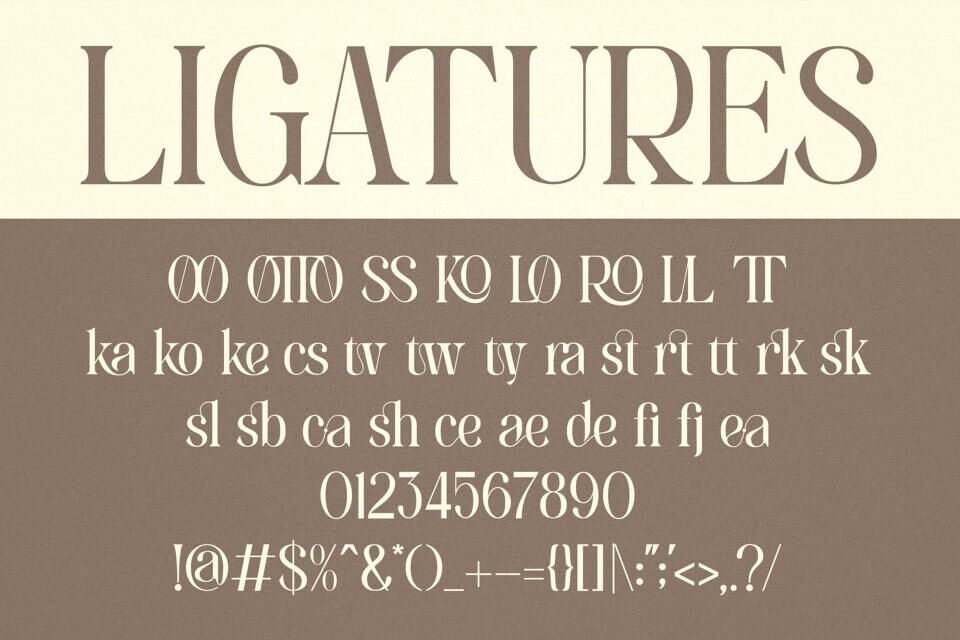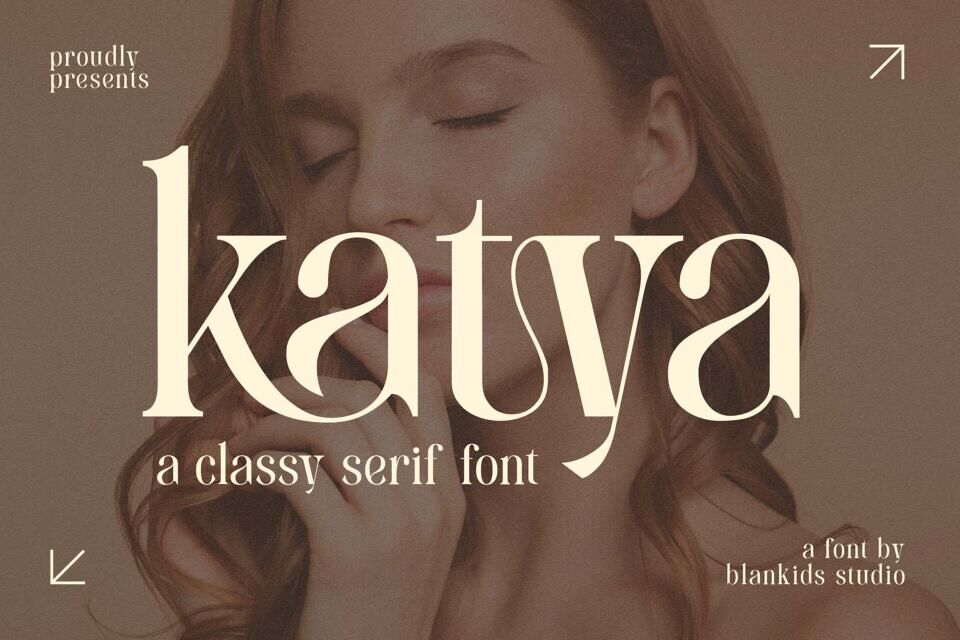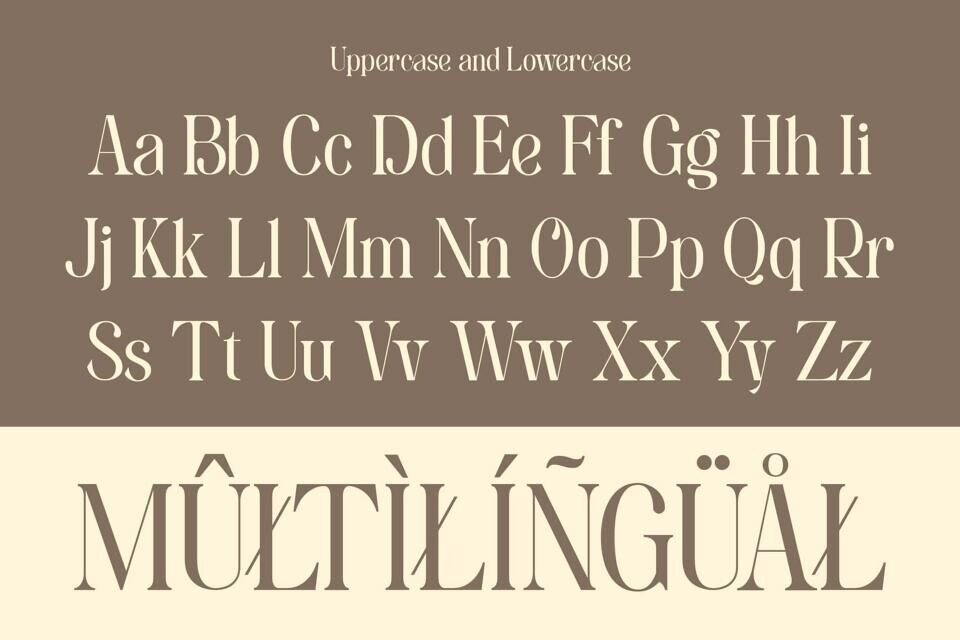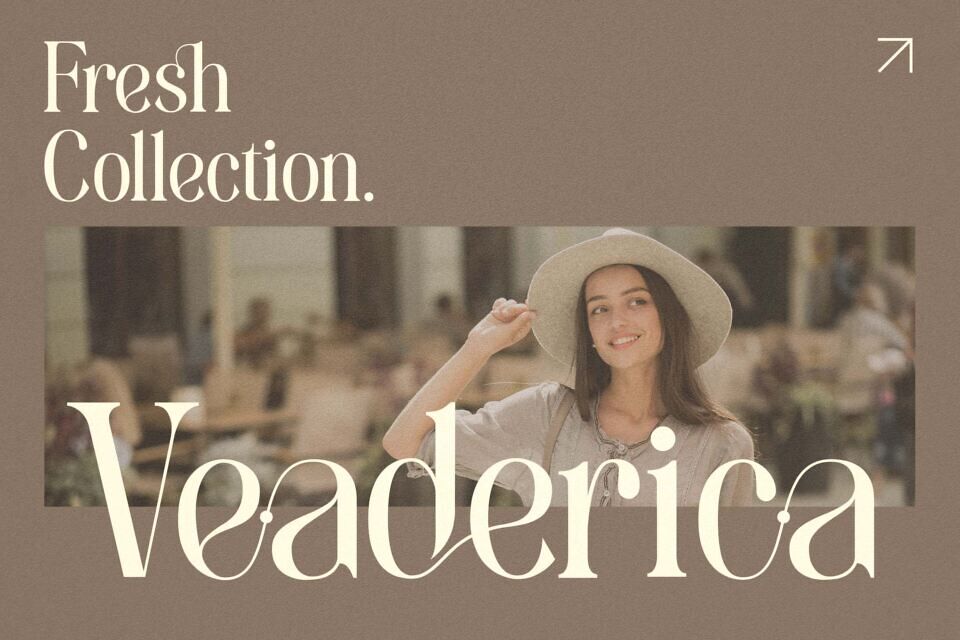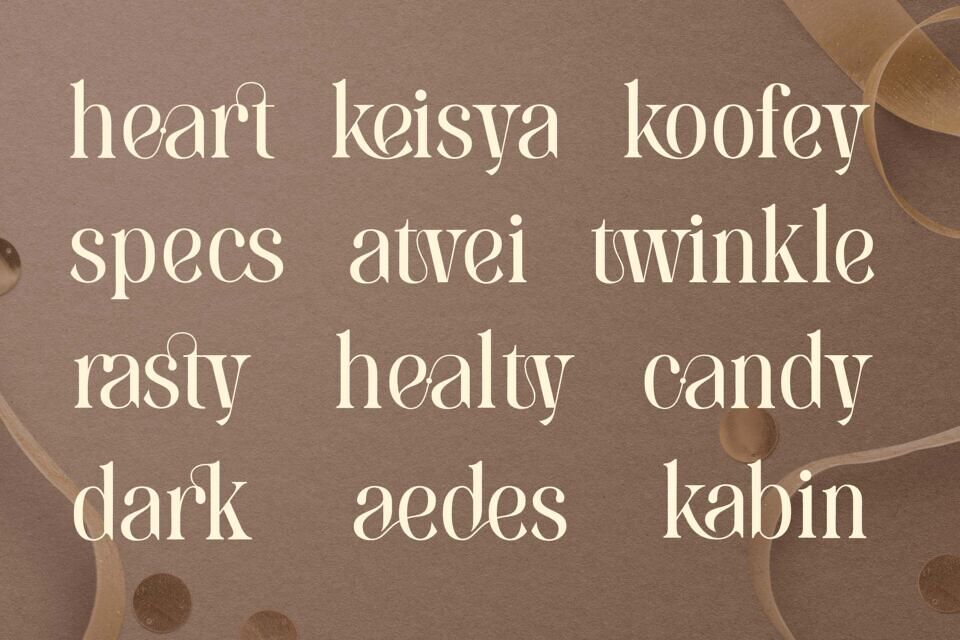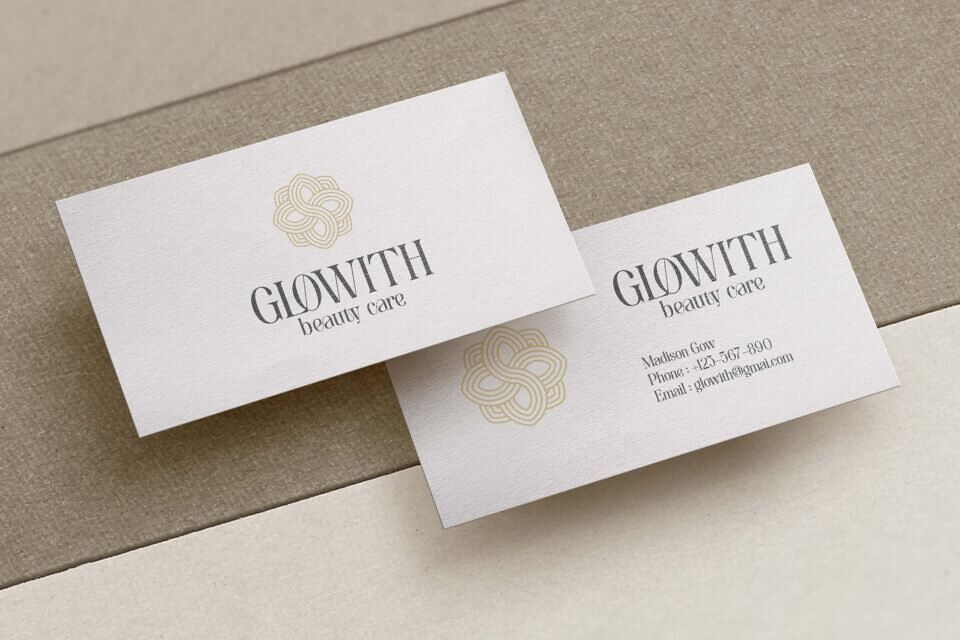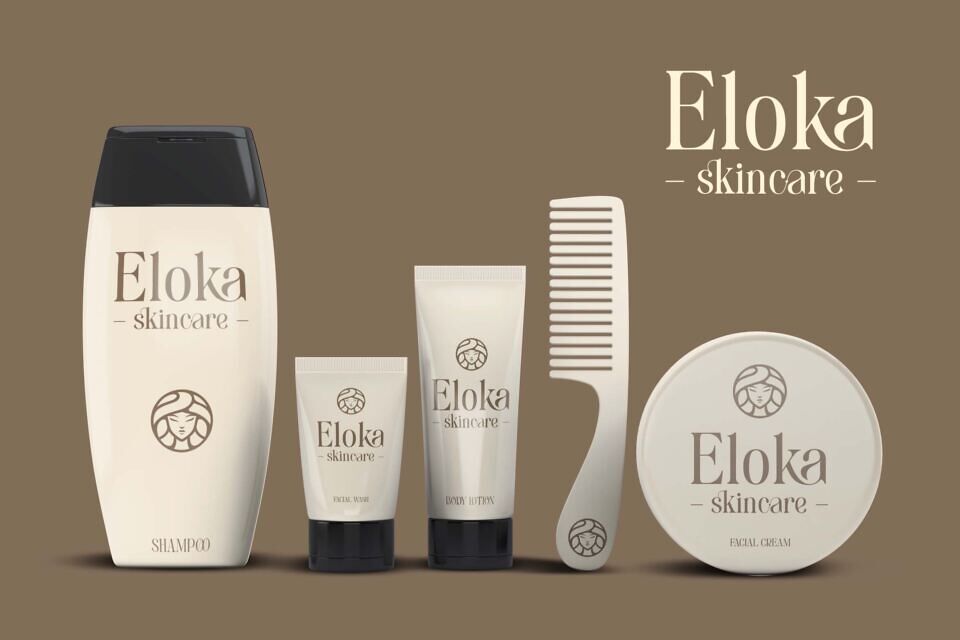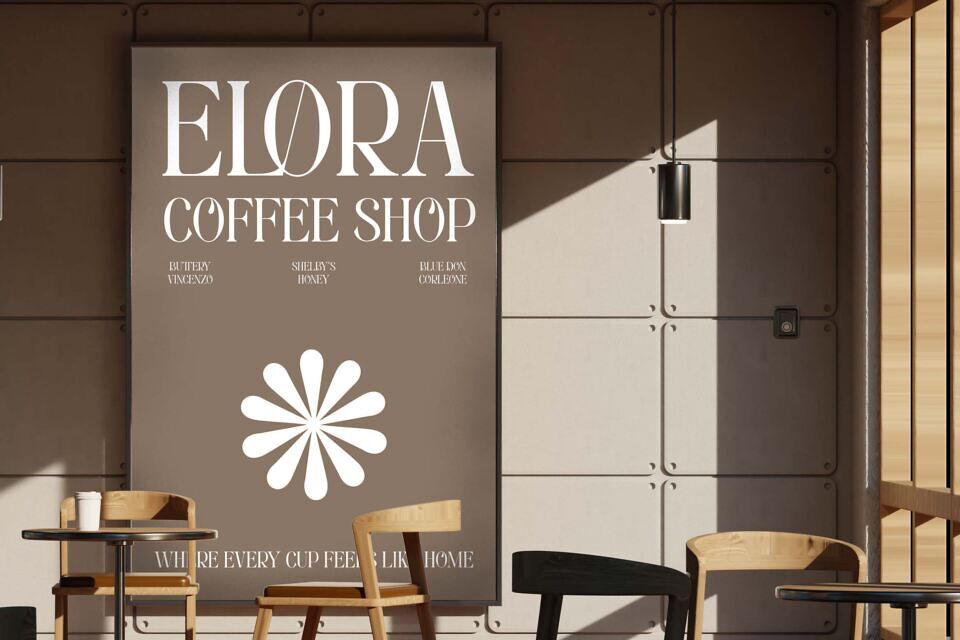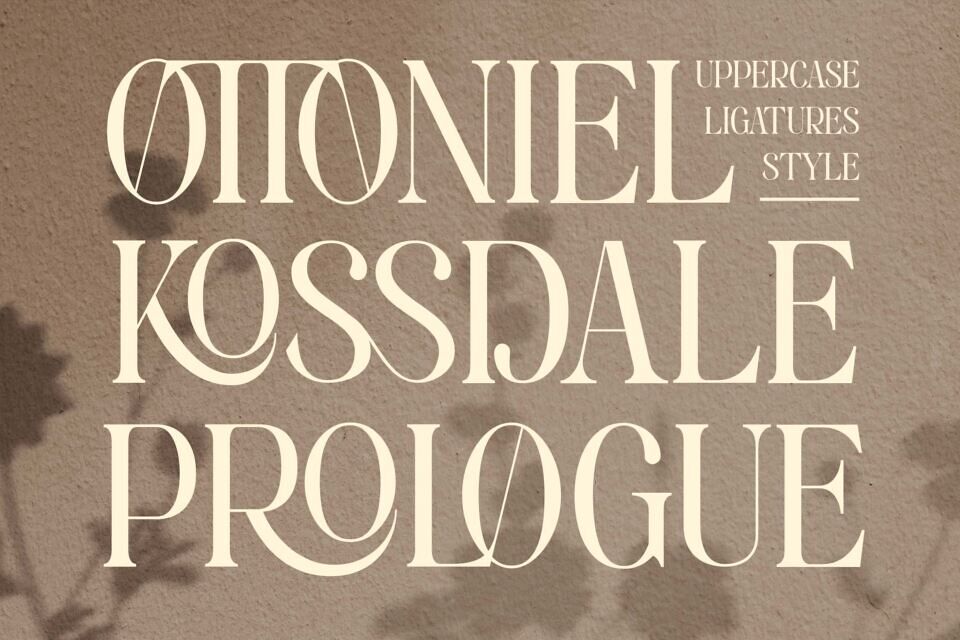
Katya Font
Katya is a classy Serif Font made for any professional project branding, such as logotype, watermarks, poster, branding, promotions, product packaging, etc. Every letter has a classy style design.
Katya font includes a full set of vintage uppercase and lowercase letters, numerals and punctuation. This font has a classy style. See the previews above to get some inspiration on how to use them. Happy designing!
Designed by: Blankids Studio